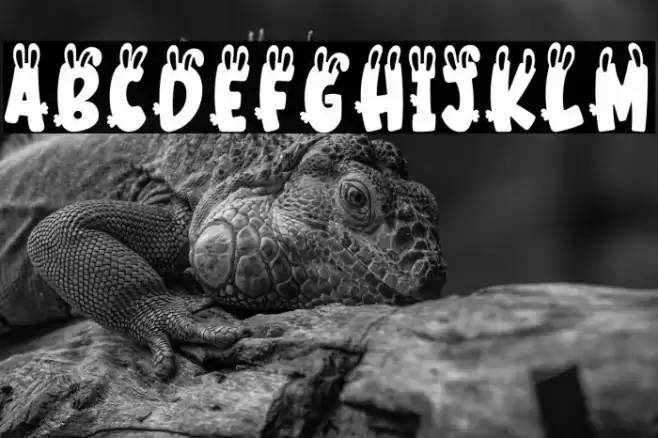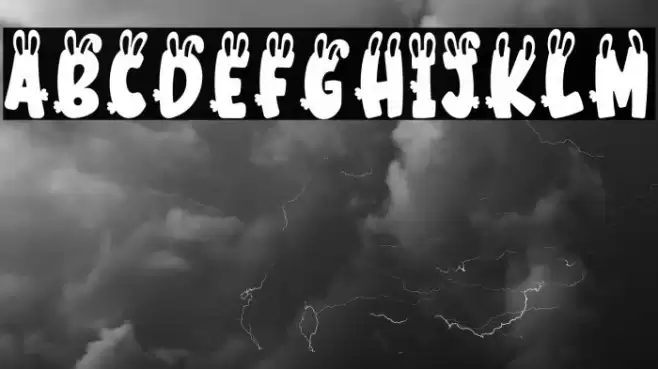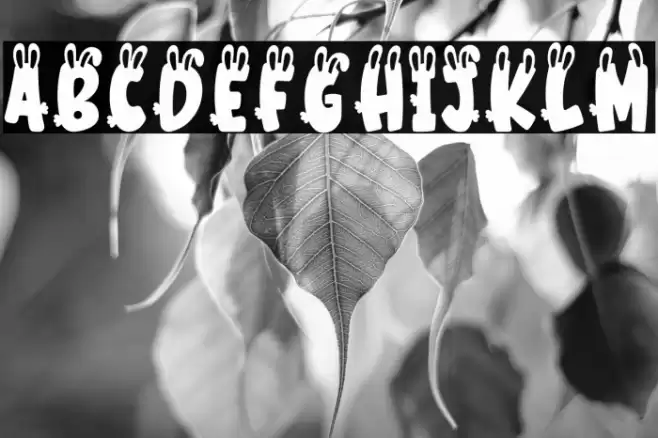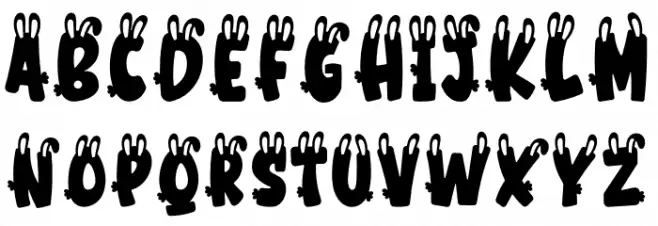
Bunny PERSONAL USE ONLY! Font
Bunny PERSONAL USE ONLY! Description
This playful and whimsical font features bold, cartoon-like characters with distinctive bunny ears on top of each letter. The design is highly decorative, with a fun and lighthearted feel, making it ideal for projects that require a touch of humor and creativity. The characters are bold and chunky, ensuring high visibility and impact. The font maintains a consistent style throughout, with each letter exhibiting a unique personality while still adhering to the overall theme. The inclusion of bunny ears adds a unique and memorable element, setting it apart from more traditional fonts.
A bold, playful font with bunny ears on each letter, perfect for whimsical designs from Easter fonts.
- Proposed Projects: Ideal for children's books, playful posters, Easter-themed events, and greeting cards.